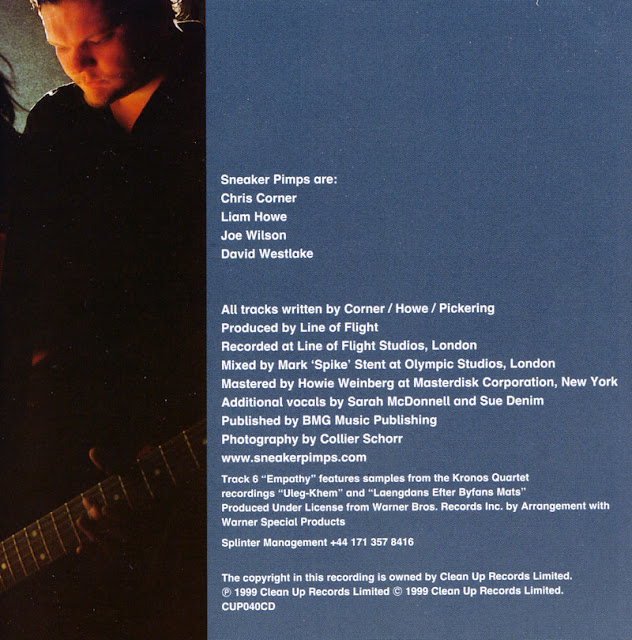
(x) Helvetica-like sans serif on Sneaker Pimps "Splinter" album cover - various {Günther Gutenberg}
What is this font used on this 1999 album cover?
I’ve tried Identifont and WhatTheFont, but no luck. It seems to be Helvetica bold, but the s and l aren’t right. (Neither are the p descenders, but those might just be customized).
I don’t know, but it’s really nice! I feel that Helvetica is a bit to rational and cold for me at the moment, but this one could most definately be used as an alternative. I especially like the ’l’
Exactly! This looks like an amazing friendlier-than-helvetica font. I want it so bad. I even tried to find out who designed the cover, but no success there either.
Kind of reminds me of DIN, but to many differences to be correct.
Looks like someone’s been playing around with Helvetica Bold, strangely cutting the n and p, borrowing the lc. s from Akzidenz Grotesk Bold and adding a Schulbuch Nord-inspired lc. l.
If you’re looking for a similar (but consistently designed) font I’d recommend Schulbuch Nord, which is a reworked Akzidenz Grotesk that has been designed for German schoolbooks. There’s also Schulbuch Süd (aka Schoolbook Alternate etc.), which has a slightly more Futura-like feel.
Please note that both Schulbuch Nord and Süd have the single storey a.
Couldn’t it just be an altered Helvetica, or mixed with somehing else?
For example the last ’s’ in ’Pimps’ looks like Akzidenz Grotesk.
But it could be something entirely else, of course.
It looks like a mix between Helvetica and whatever typeface is found on the inside copy of the booklet. I will try and scan it for you soonish.
Thanks, GünniGutenberg. I think you are quite correct. Schulbuch Nord looks great – but why did they use a single story a! :,-,,( , , , ,
For similar grotesques that work the “a better Helvetica” angle, check out
Galaxie Polaris
Akkurat
Graphik
at the time when Schulbuch Nord/Süd have been designed, the standard font used in Germany was Akzidenz Grotesk.
The reason for producing a special version of AG exclusively for school books was a simple one: Some letter shapes (like the lc. a) were adapted to the ones of the “Ausgangsschriften”, standardised hand writings taught at primary school in Germany. The intention was to interlink (and therefore facilitate) the process of learning both to read and to write.
Inside Copy